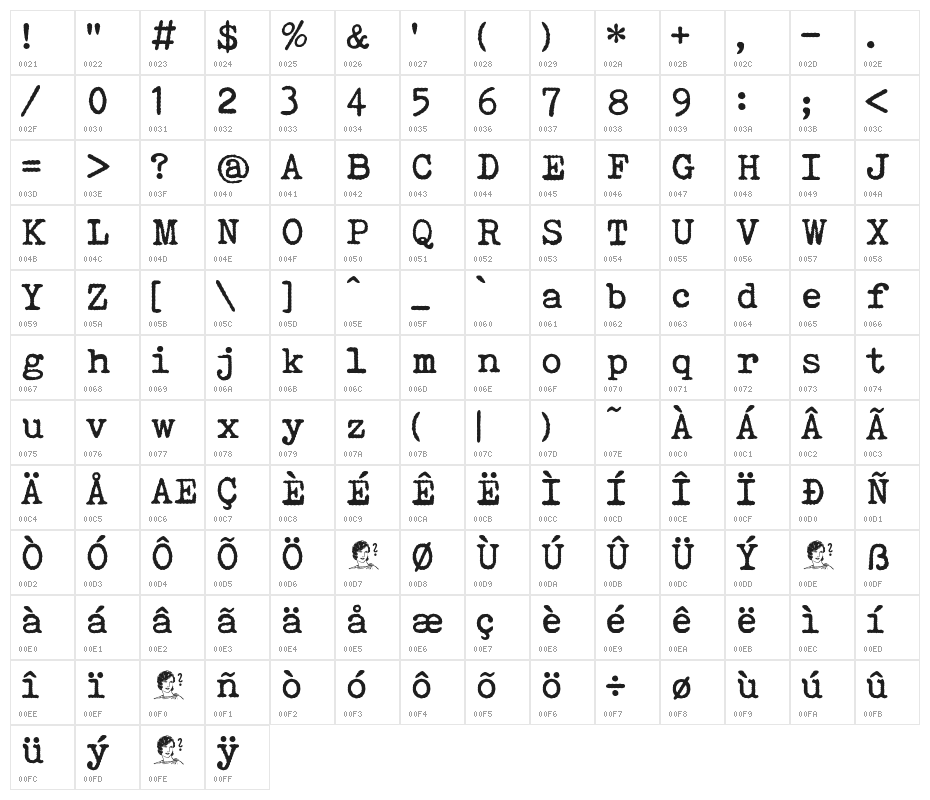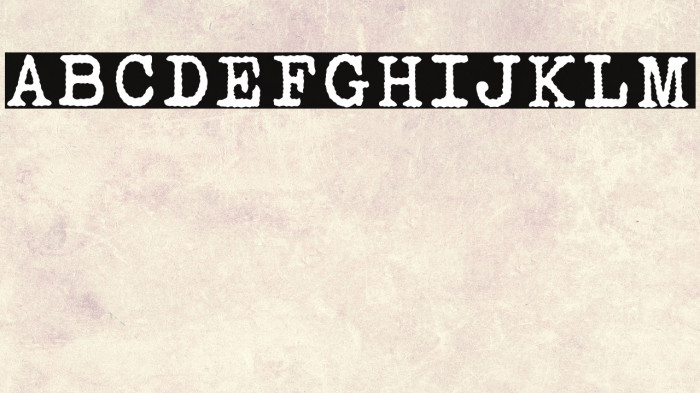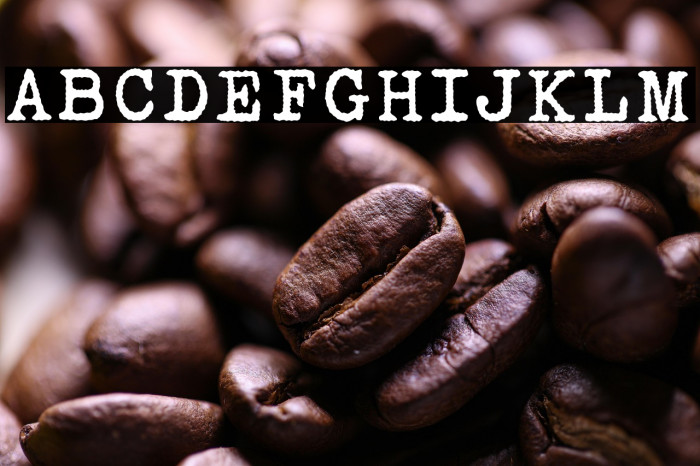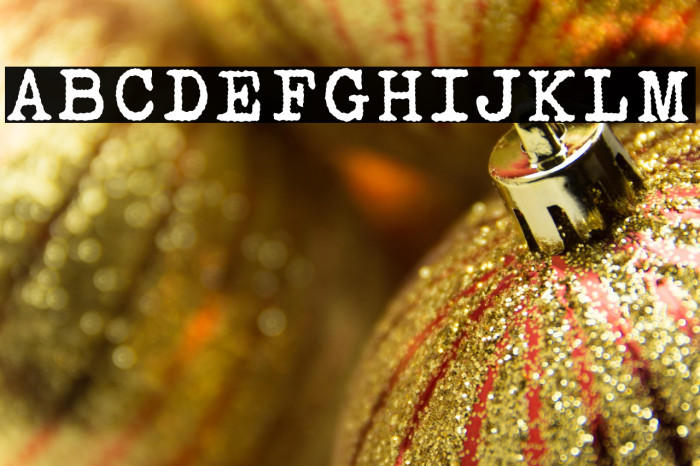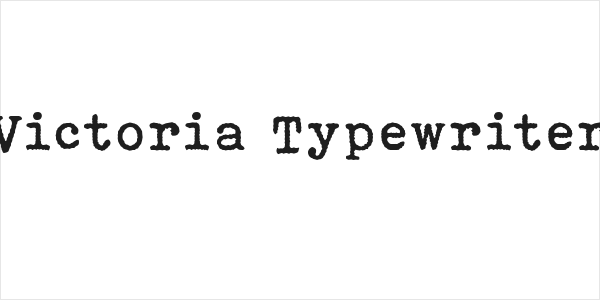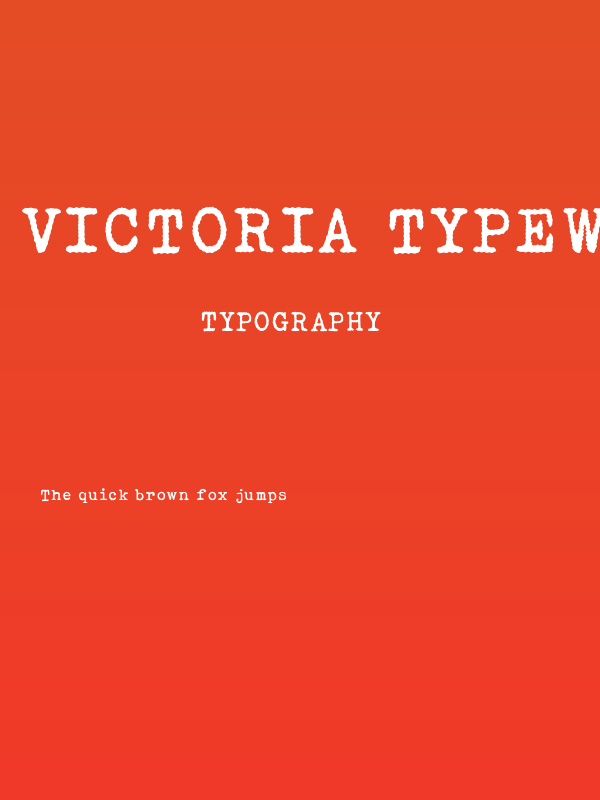
Victoria Typewriter Font
Victoria Typewriter Description
This typeface embodies the nostalgic charm of vintage typewriters, featuring a monospaced design that evokes a sense of classic, mechanical precision. Each character is distinct, with a slightly uneven baseline and subtle imperfections that mimic the authentic look of ink on paper. The letters are bold and clear, making them highly legible while maintaining a unique, retro aesthetic. The numbers and special characters follow the same style, ensuring consistency across all text. This font is perfect for projects that require a touch of old-world charm and authenticity.
| Use Case | Headlines, Logos, Decorative text |
| Proposed Projects | Ideal for retro-themed designs, typewriter art, vintage posters, and any project needing a classic touch. |